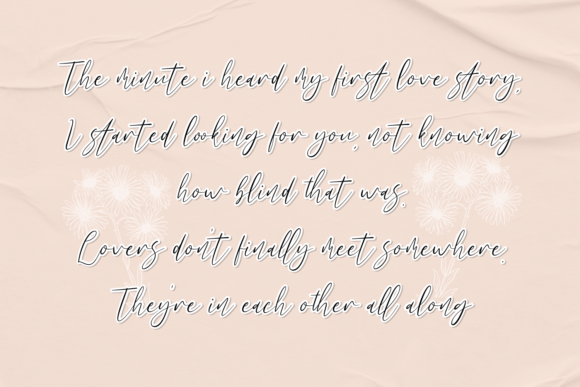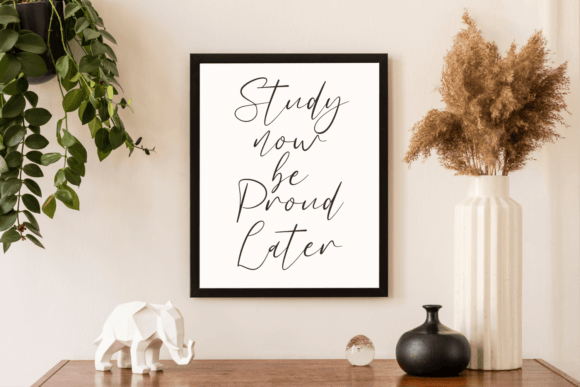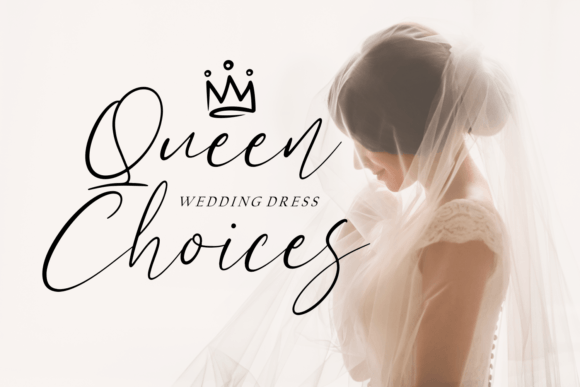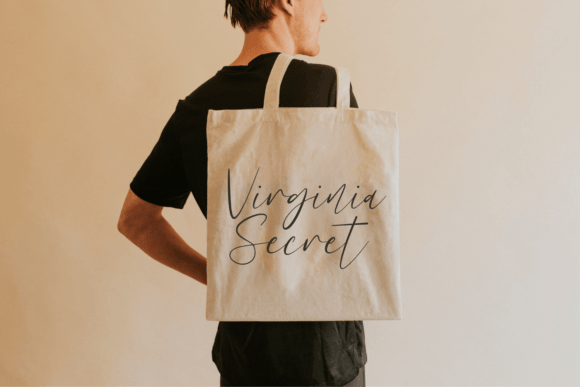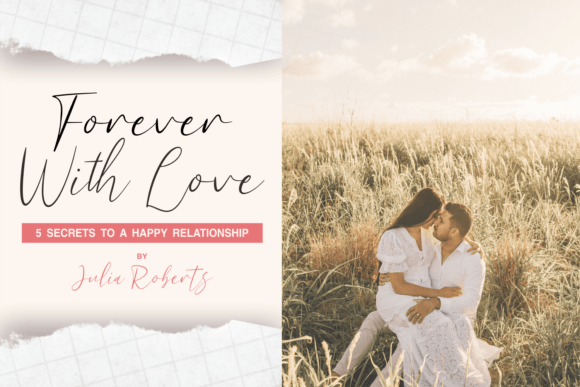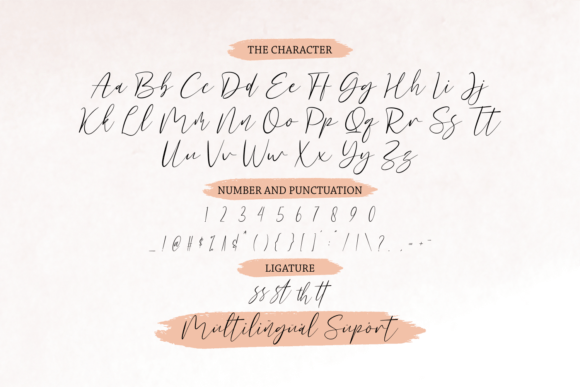
Introducing Amelita Font: The Sweet and Delicate Handwritten Font for Romantic Designs
Are you a designer or crafter looking for a font that can add a touch of romance and personality to your designs? Look no further than Amelita Font! This sweet and delicate handwritten font is perfect for creating beautiful wedding invitations, cards, and other designs that require a personal and emotional touch.
What Makes Amelita Font Special?
Amelita Font is a unique and charming font that is sure to capture the hearts of anyone who sees it. Its dainty and joyful appearance makes it ideal for designs that require a touch of elegance and sophistication. Whether you’re creating wedding invitations, birthday cards, or other special occasion designs, Amelita Font is the perfect choice.
Characteristics of Amelita Font
So, what makes Amelita Font so special? Here are some of its key characteristics:
- Sweet and delicate: Amelita Font is a sweet and delicate font that is perfect for creating romantic and feminine designs.
- Handwritten: This font has a beautiful handwritten appearance that gives it a personal and emotional touch.
- Dainty and joyful: Amelita Font is dainty and joyful, making it perfect for designs that require a touch of elegance and sophistication.
- Romantic: This font is perfect for creating romantic designs, such as wedding invitations and love letters.
Uses of Amelita Font
Amelita Font is a versatile font that can be used for a variety of design projects. Here are some of the most popular uses of this font:
- Wedding invitations: Amelita Font is perfect for creating beautiful and romantic wedding invitations.
- Cards: This font is great for creating birthday cards, anniversary cards, and other special occasion cards.
- Stationery: Amelita Font can be used to create beautiful and elegant stationery, such as letterheads and journals.
- Signage: This font can be used to create beautiful and eye-catching signage, such as welcome signs and directional signs.
Why Designers and Crafters Love Amelita Font
Designers and crafters love Amelita Font for many reasons. Here are some of the most popular reasons:
- Easy to read: Amelita Font is easy to read, even at small sizes.
- Versatile: This font can be used for a variety of design projects, from wedding invitations to signage.
- Unique: Amelita Font is a unique and charming font that is sure to stand out from the crowd.
- Personal touch: This font adds a personal touch to designs, making them more emotional and engaging.
Tips for Using Amelita Font
Here are some tips for using Amelita Font in your designs:
- Use it for headings: Amelita Font is perfect for headings and titles, as it adds a touch of elegance and sophistication.
- Pair it with other fonts: This font can be paired with other fonts to create a unique and interesting design.
- Use it for body text: Amelita Font can be used for body text, especially for short paragraphs and captions.
- Experiment with colors: This font looks great in a variety of colors, so don’t be afraid to experiment and find the perfect color for your design.
Amelita Font is a sweet and delicate handwritten font that is perfect for creating romantic and personalized designs. Its dainty and joyful appearance makes it ideal for wedding invitations, cards, and other special occasion designs. With its versatility, ease of use, and unique charm, Amelita Font is a must-have for designers and crafters looking to add a touch of elegance and sophistication to their designs.